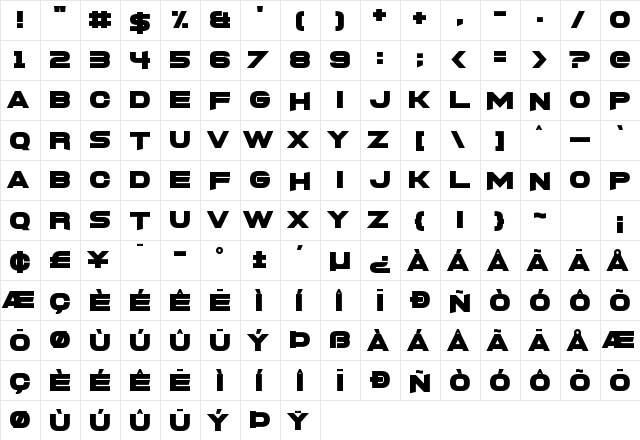
FoughtKnight X Regular Font Preview
FoughtKnight X Regular
Design Context for FoughtKnight X Typeface
FoughtKnight X offers clean, dependable letterforms without strong stylistic allegiance, making it a practical choice for designers who need flexibility.